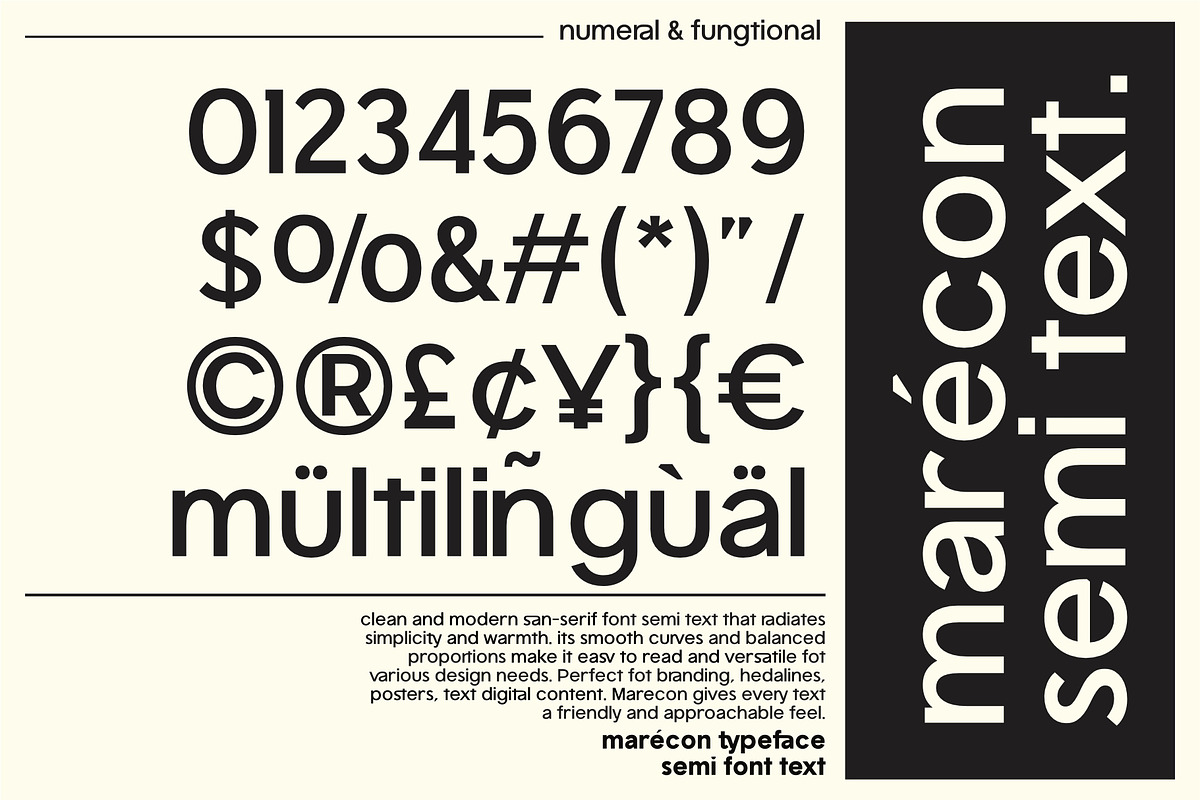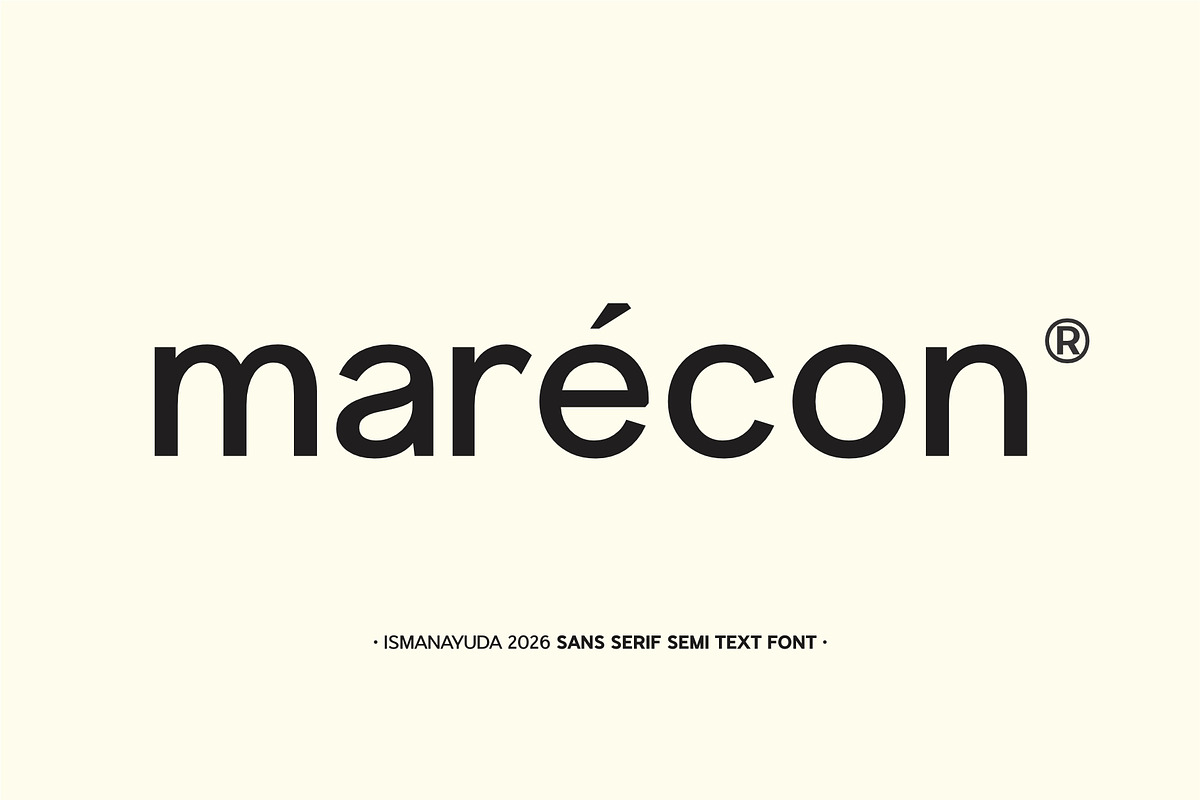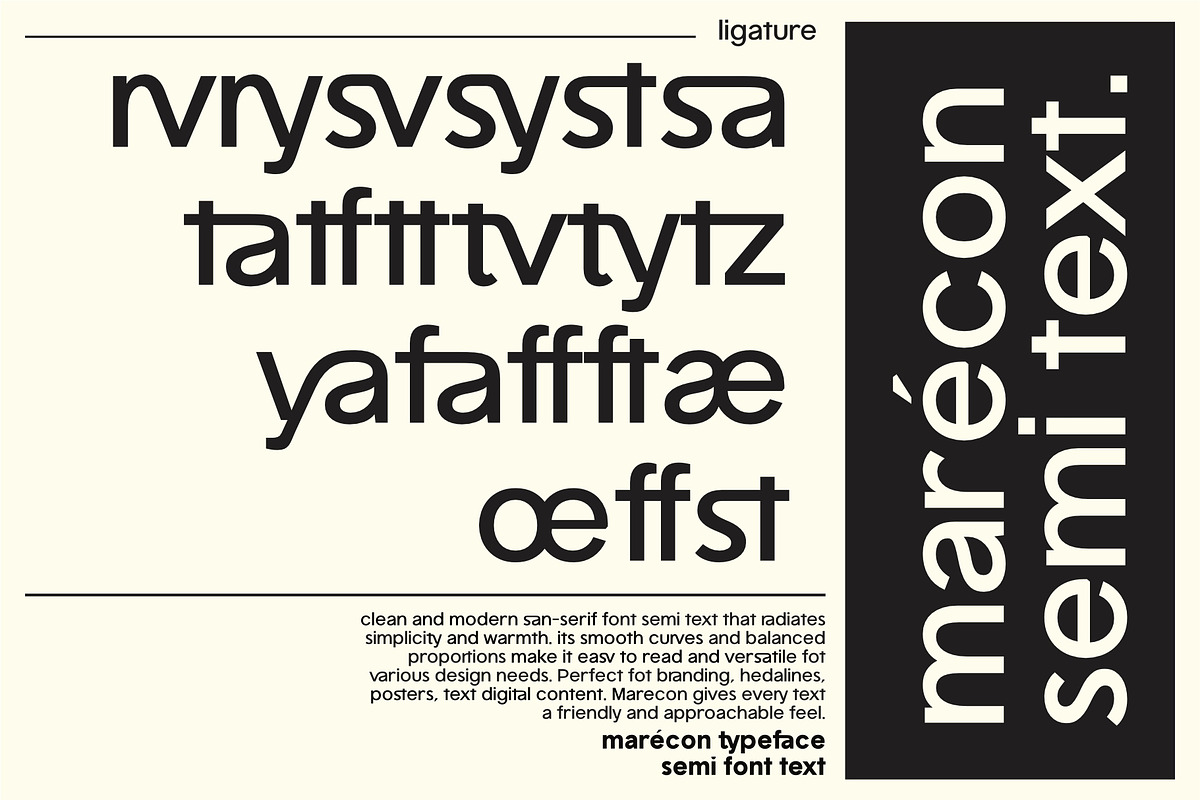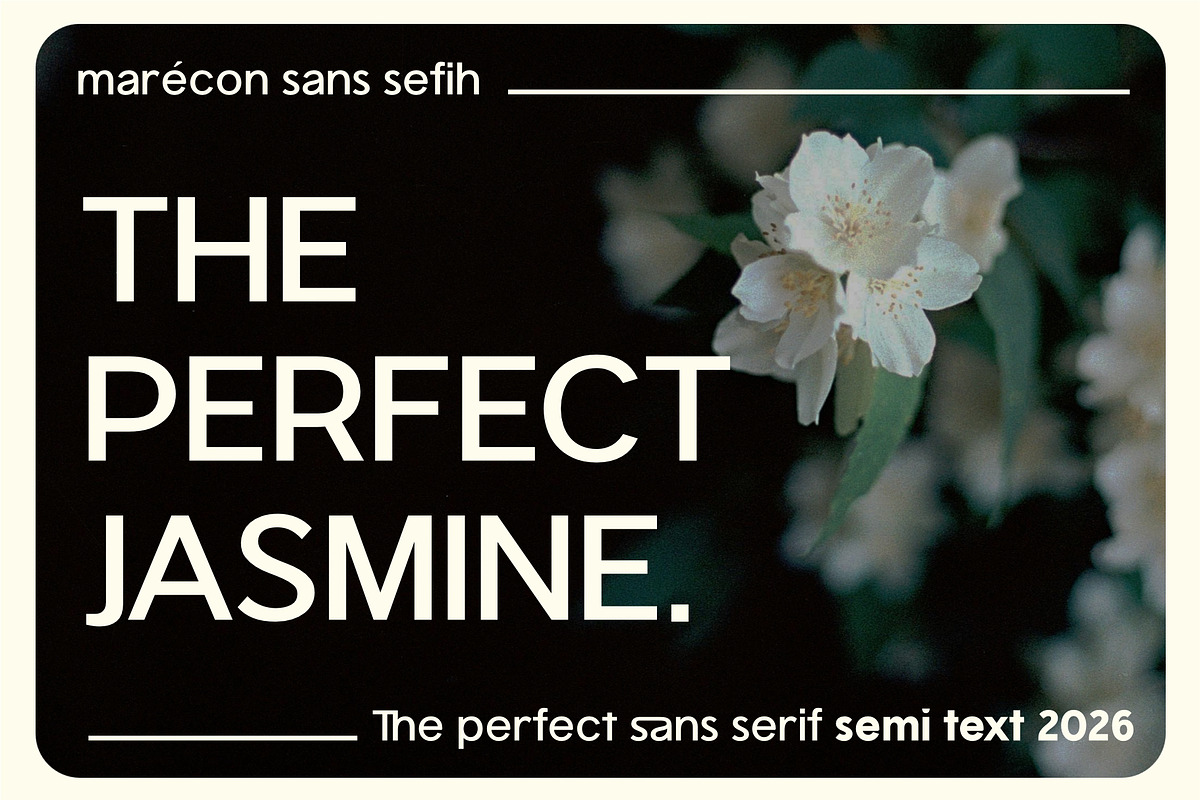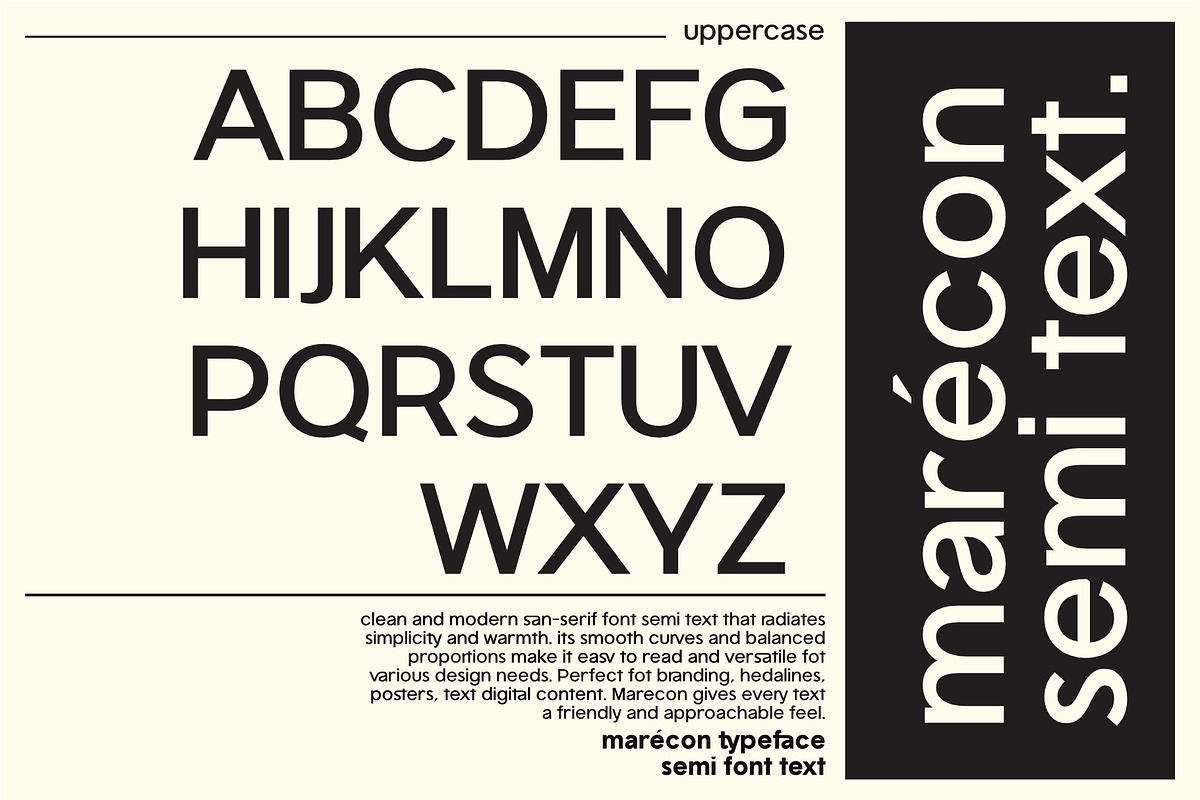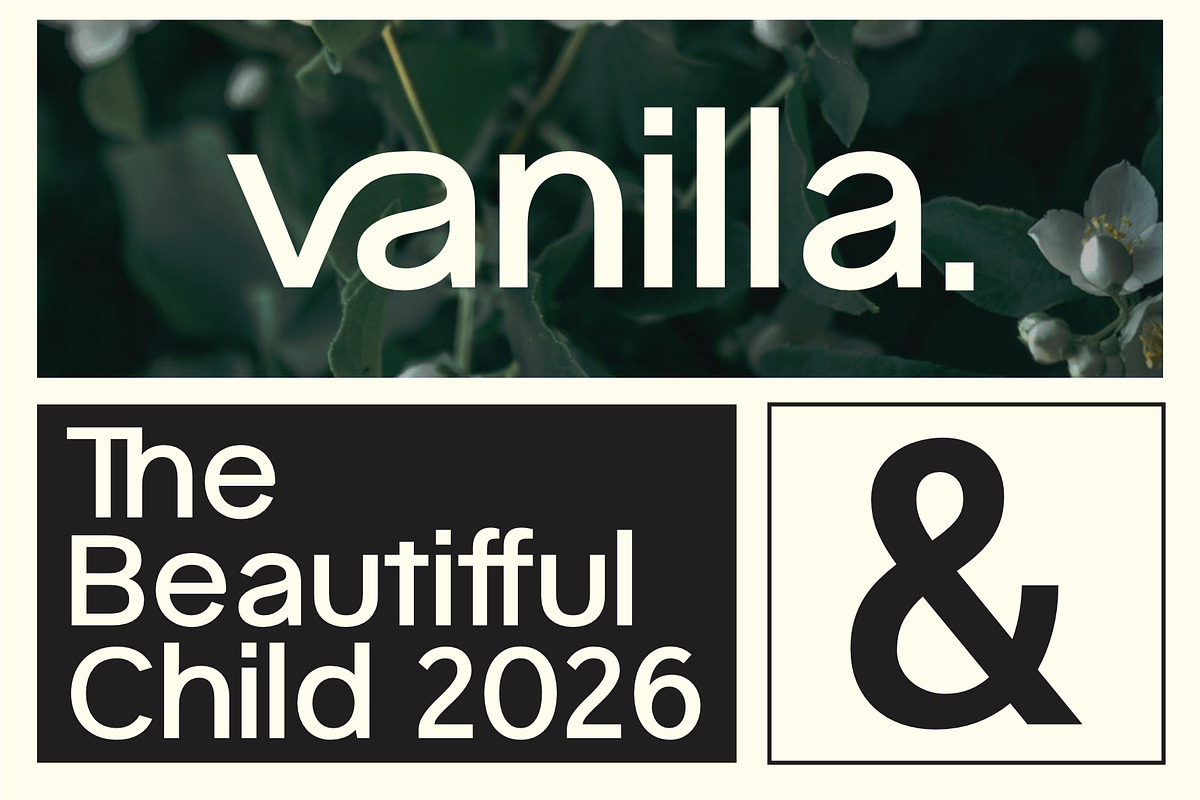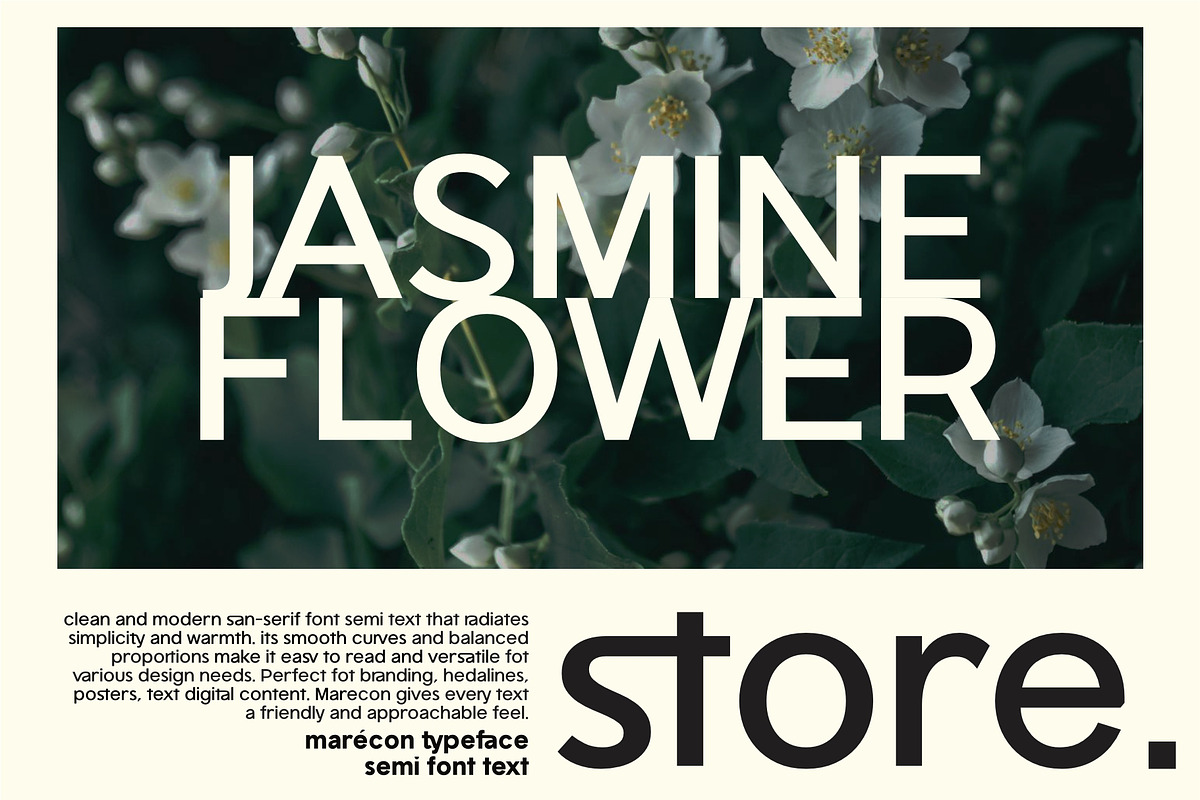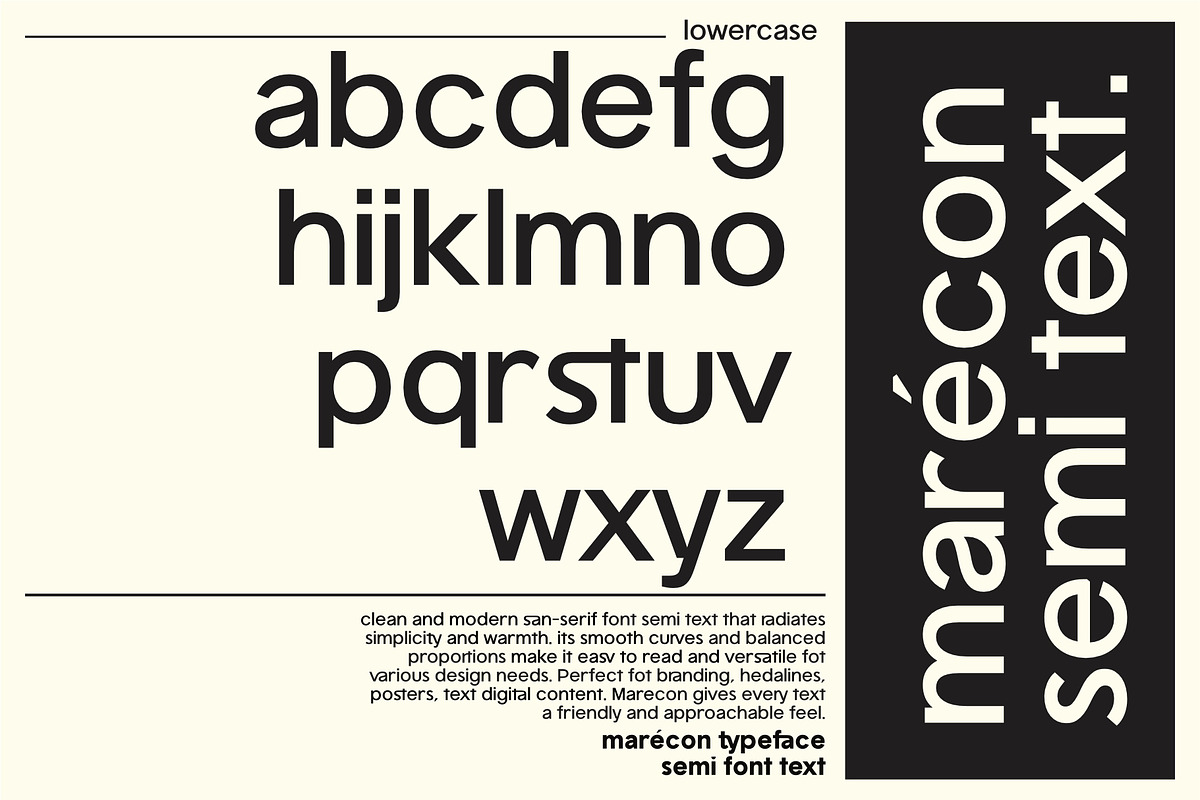
Marecon
Marecon Sans Serif font semi text typeface characterized by its modern, clean, and minimalist aesthetic. It features geometric structures with uniform stroke thickness, providing high readability and a professional appearance. The lowercase letters have open counters and precise curves, which lend the typeface a contemporary and approachable feel. Its overall design is balanced and versatile, making it highly suitable for branding, digital interfaces, and editorial design.